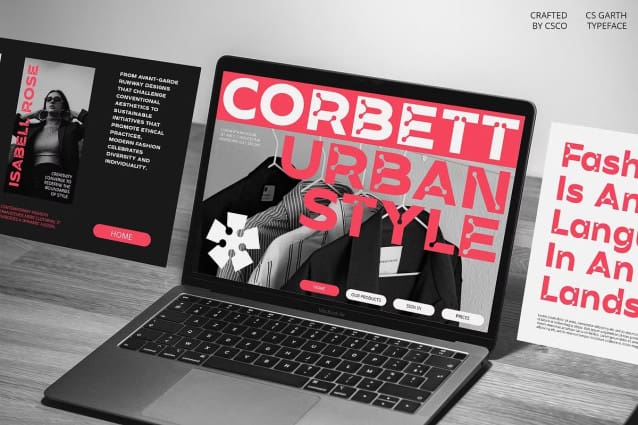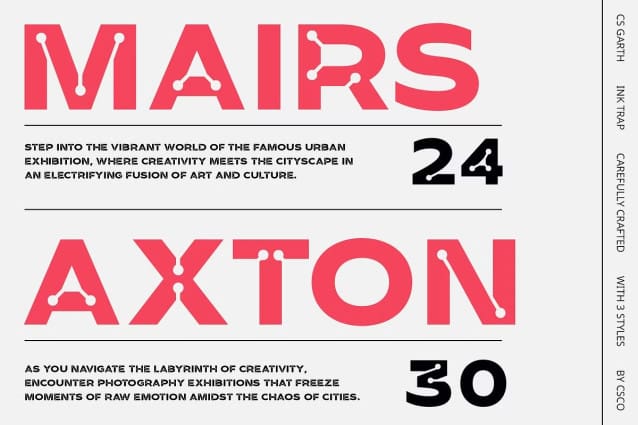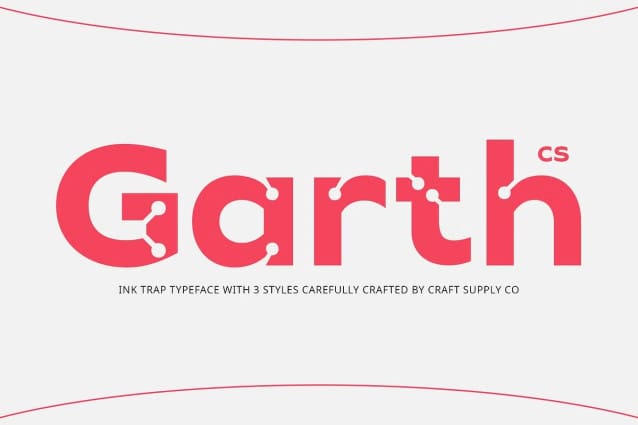
CS Garth Font
CS Garth Font is a modern sans-serif font with inktrap features that bring a unique dimension to modern design projects. With its clean and sharp sans-serif design, this font showcases inktrap details that add depth and character, making it suitable for designs that prioritize a modern and up-to-date appearance.
Modern and Clean Design The clean and sharp design of CS Garth gives it a modern and sleek appearance. Its sans-serif design provides a clean and minimalist look that is perfect for modern design projects.
Inktrap Details for Added Dimension The inktrap details in CS Garth add a unique dimension to the font, making it stand out in any design project. These details emphasize corners and fine details, adding depth and character to the text.
Perfect for Modern Designs CS Garth is suitable for various modern design projects that require a clean and contemporary look. Whether you’re designing branding materials, websites, or advertisements, this font can help you achieve a modern and up-to-date appearance.
Enhance Your Designs with CS Garth Whether you’re creating a sleek corporate identity or a stylish editorial layout, CS Garth can help you add dimension and character to your designs. Its modern design and inktrap details make it a versatile choice for any design project that requires a modern and up-to-date appearance.